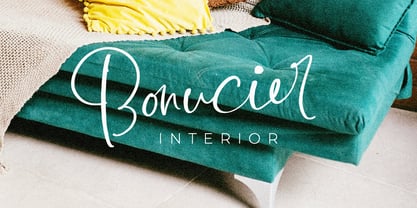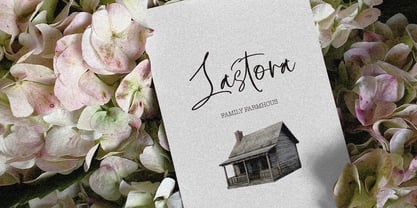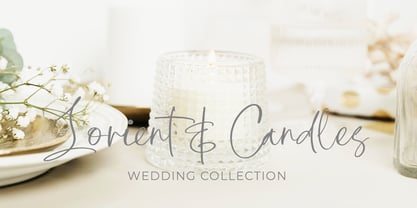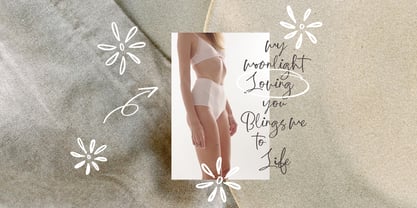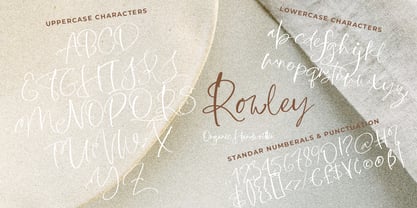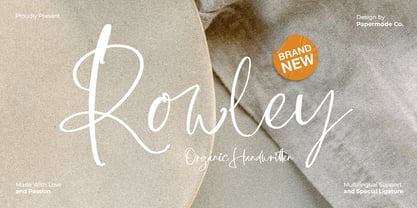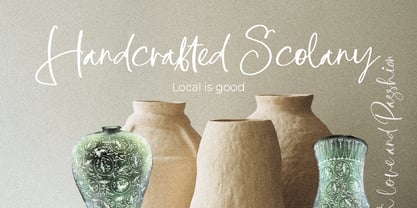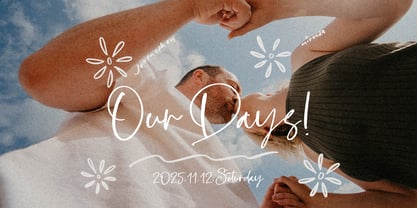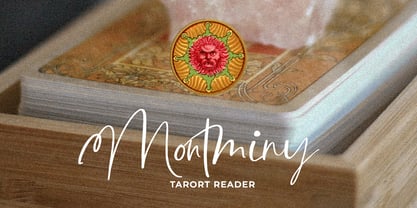
Rowley
by Papermode Co
The Rowley Font Family was designed by Mira Kartika Sari and published by Papermode Co. Rowley contains 1 styles. More about this family
Rowley is a organic handwritted font inspired by natural brush typography. Written in rapid motion using a slightly dry brush pen. This will give you a fresh and elegant design. Rowley comes with uppercase and lowercase sets, numbers, alternative styles for some lowercase characters are also available which make your text and designs more attractive.
Included multilingual support and special ligatures
Designers: Mira Kartika Sari
Foundry: Papermode Co